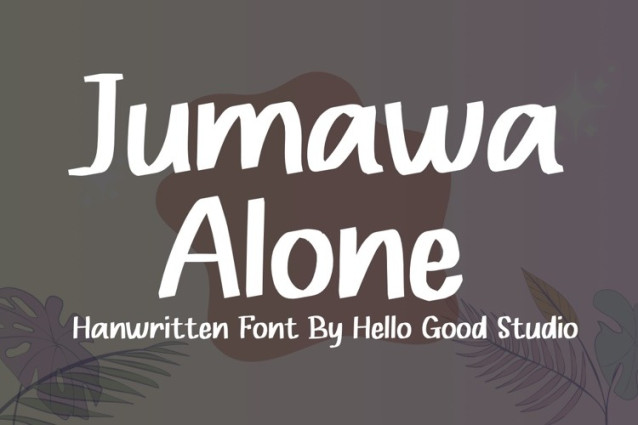
Jumawa Alone Font
Jumawa Alone Font, suitable for any design needs : logo, branding, modern advertising design, logos, poster quote, book / cover Title, editorial design, website / blog, card, t-shirts, and any hand-lettered needs.